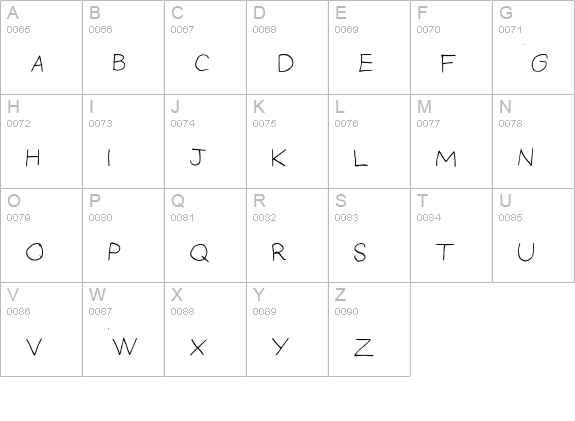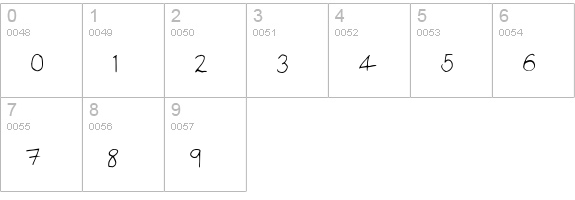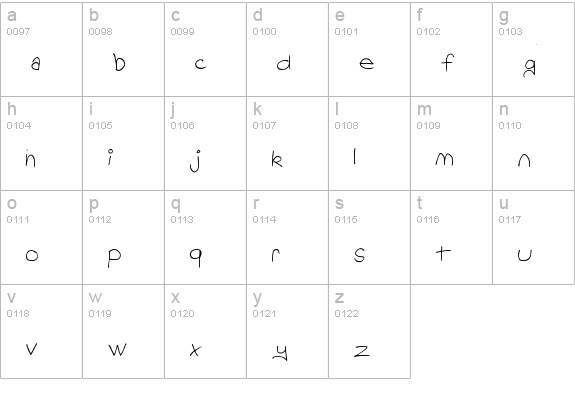
Vanilla Galaxies by Breely Extra-Light Font Details
Vanilla Galaxies by Breely Extra-Light is a refined, elegant variant in the Vanilla typeface family \xE2\x80\x94 well suited to elegant body text, refined sub-headings, and luxury branding.
Introducing Vanilla Galaxies, a stunning and ethereal font that will transport you into a world of whimsical beauty. With its delicate curves and graceful lines, this font captures the essence of elegance and sophistication. Whether you're designing a wedding invitation, crafting a logo, or creating a captivating headline, Vanilla Galaxies will add a touch of magic to your projects. This font is the epitome of versatility, as it seamlessly blends into any design style, from modern to vintage. Its unique and charming glyphs will instantly elevate your work, allowing you to express your creativity with ease. The soft and romantic feel of Vanilla Galaxies is perfect for adding a touch of femininity and grace to any project. But what sets Vanilla Galaxies apart is not just its exquisite design, but the fact that it is available for free. That's right - you can freely download this beautiful font at FontsMarket.com, where it awaits to be discovered by designers, creatives, and typography enthusiasts alike. Say goodbye to budget constraints and hello to limitless possibilities with this freely accessible font. Vanilla Galaxies, in its Breely Extra-Light form, is a true gem that will undoubtedly become a favorite among designers. Its versatility, elegance, and the fact that it is freely available make it a must-have in any typography collection. So why wait? Download Vanilla Galaxies today and see your designs come to life with a touch of celestial magic.